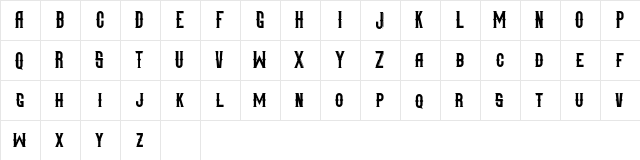
Mangarans DEMO Regular
Design Context for Mangarans DEMO Typeface
Mangarans DEMO takes a measured approach to typography — its balanced proportions and neutral character make it a reliable workhorse for both digital and print work.